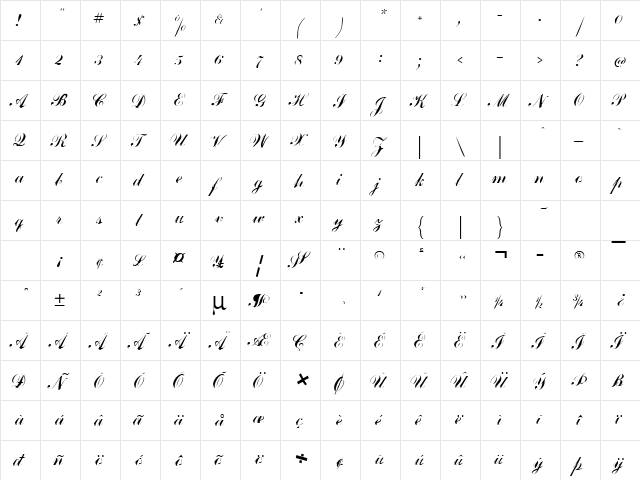
Excellence Normal
Design Context for Excellence Typeface
Excellence is a composed and adaptable typeface that performs quietly and consistently across a wide range of design contexts.